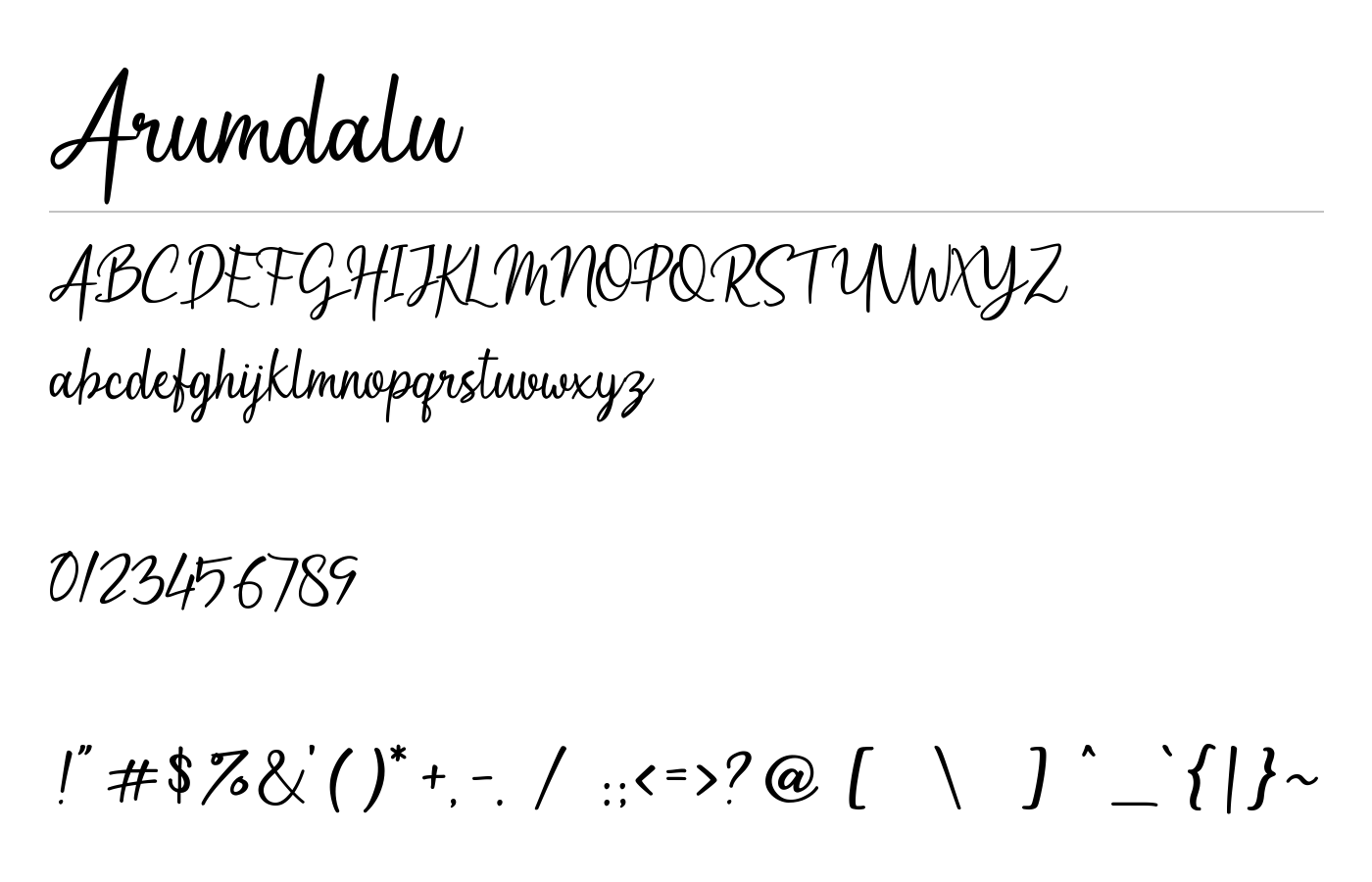
Arumdalu is a lively and elegant script font with a light and airy feel, featuring slender strokes and smooth, flowing curves that mimic natural handwriting. Its casual yet refined style makes it perfect for personal branding, invitations, and creative projects where a friendly, approachable touch is desired. This font works particularly well in headlines and logos, adding charm and personality without overwhelming the design.
Arumdalu Font
About Arumdalu Font